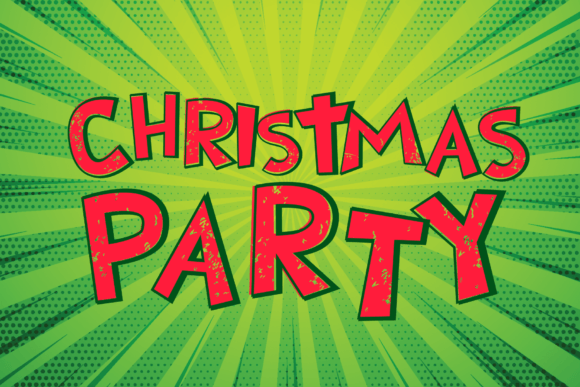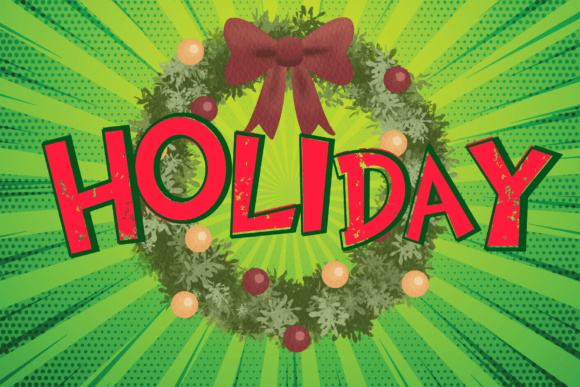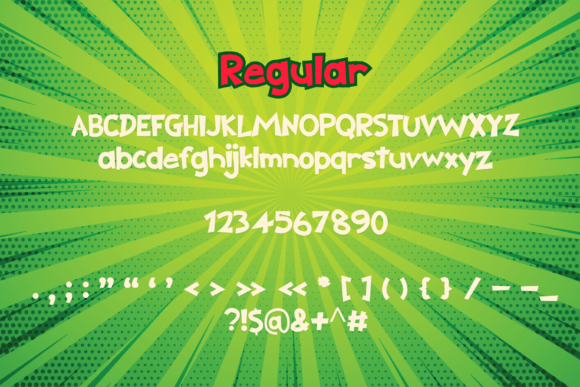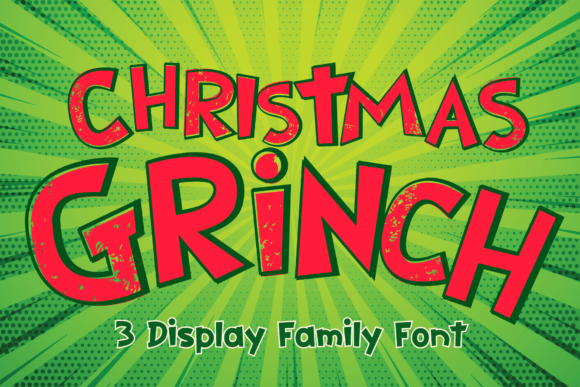
Introduction to Christmas Grinch Font
Christmas Grinch is a display font.
It embodies playfulness and authenticity and is the perfect choice for all your favorite projects such as blog posts, logos, branding, ads, invitations, greeting cards, planners, photo albums, decorations, and more Add it to any of your designs, and enjoy the results.